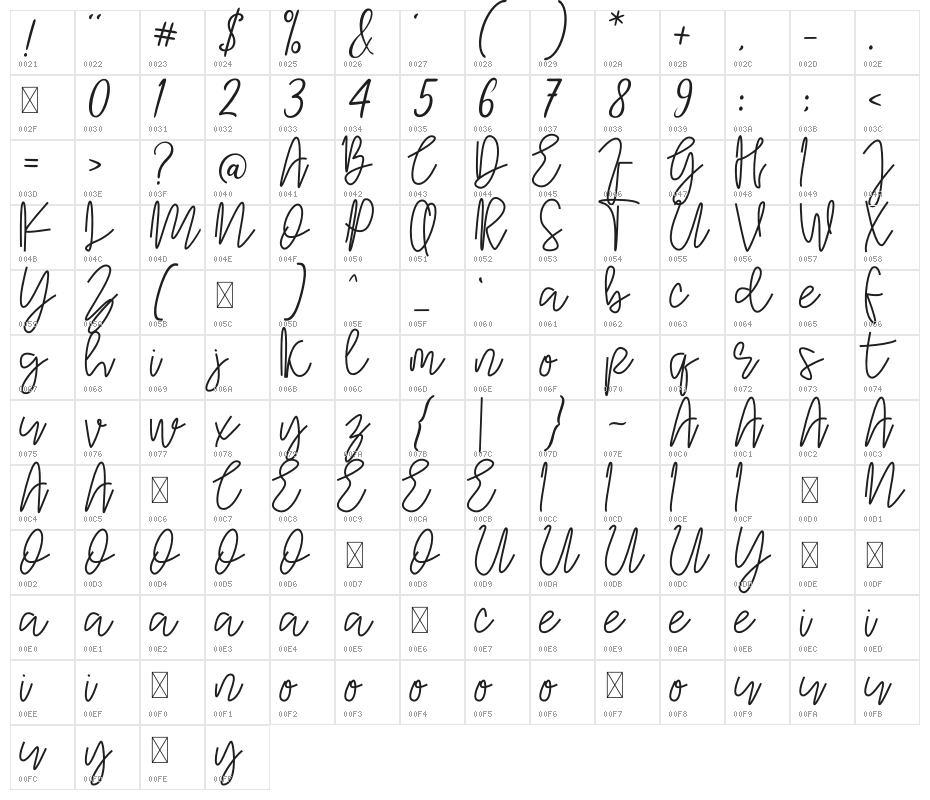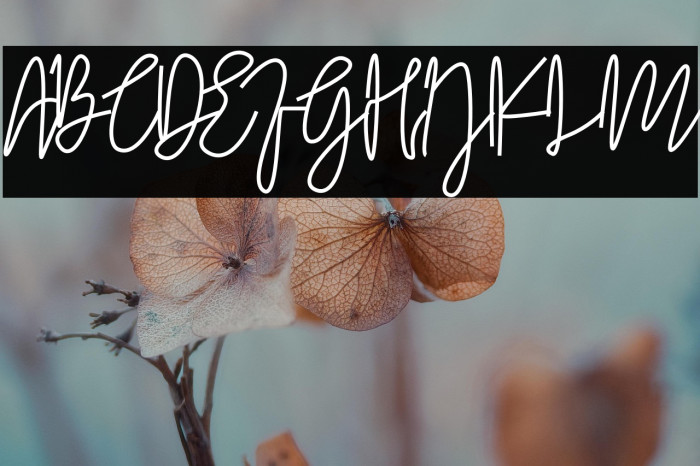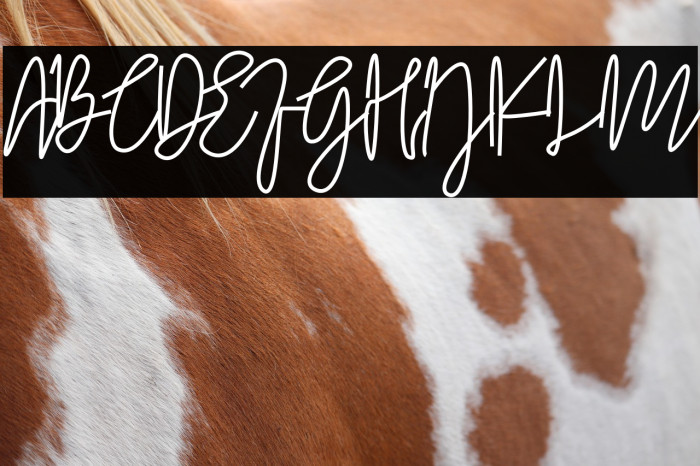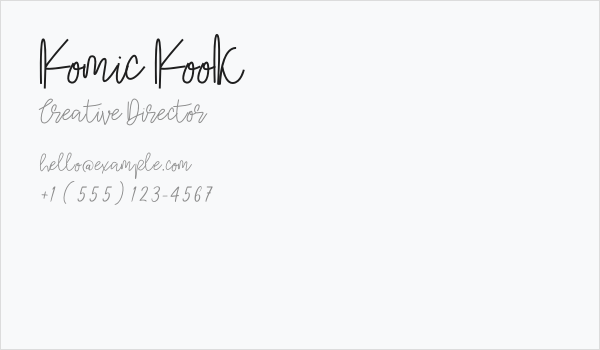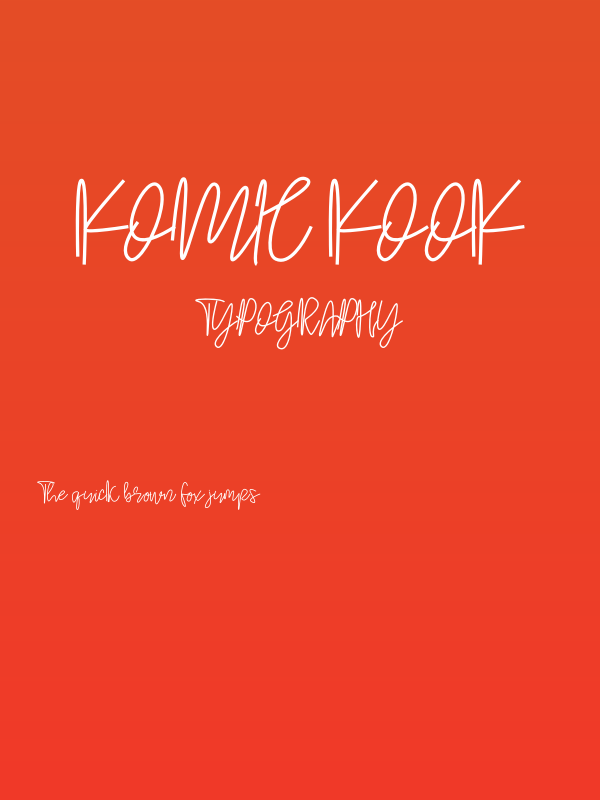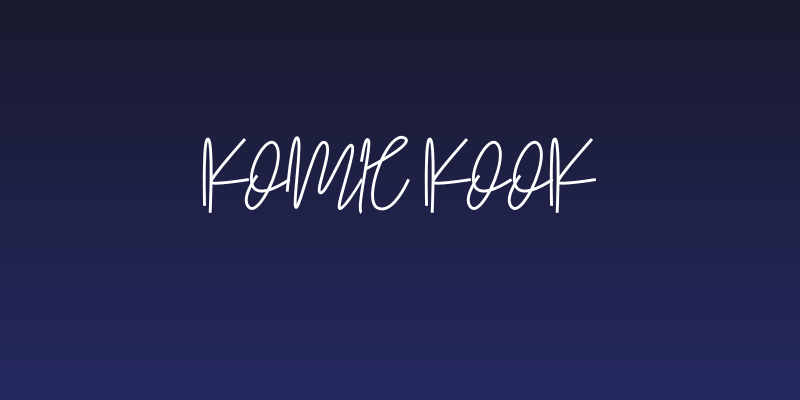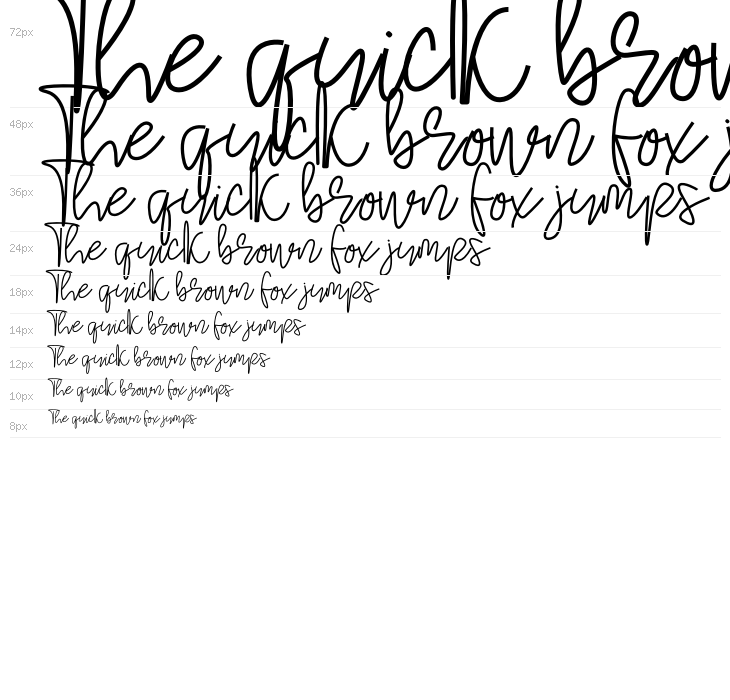
Komic Kook Font
Komic Kook Description
This playful and energetic handwritten font features a lively script style with a casual, flowing appearance. The letters are connected in a smooth, cursive manner, giving it a personal and informal touch. The strokes are consistent in thickness, providing a balanced look that is easy to read while maintaining a whimsical charm. The font includes a full set of uppercase and lowercase letters, numbers, and a variety of special characters, making it versatile for various design needs. Its dynamic and friendly style is perfect for projects that require a personal, approachable feel.
Overall StyleCasual
Use CaseLogos, Invitations, Social Media Graphics
Proposed ProjectsIdeal for greeting cards, invitations, personal branding, and social media graphics.